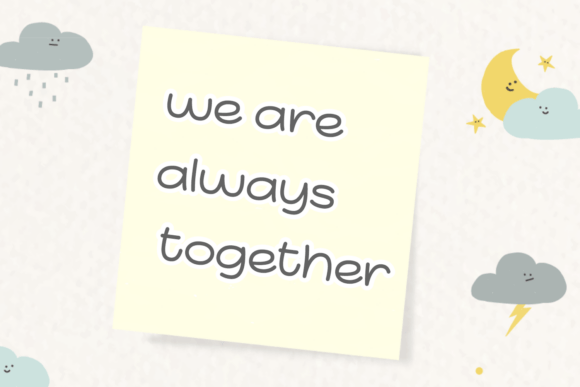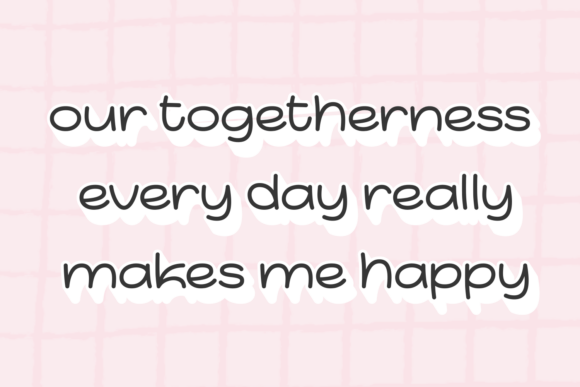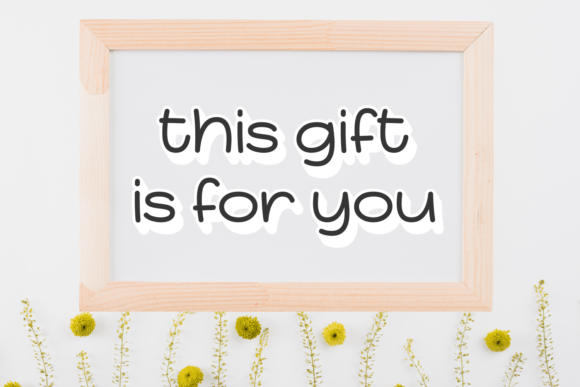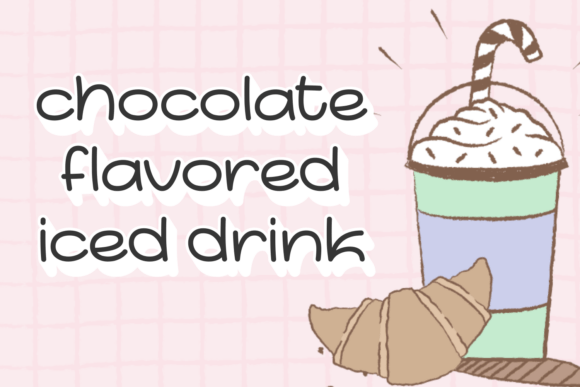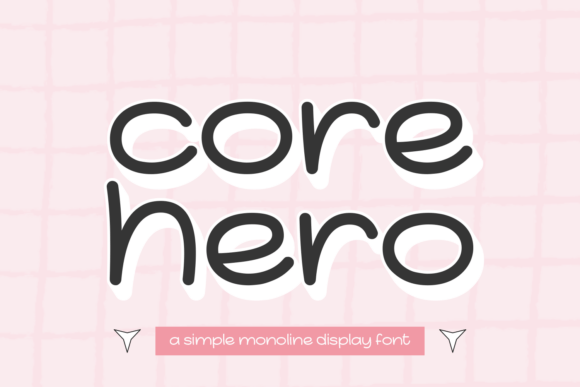
Introducing Core Hero: The Ultimate Font for Modern Creatives
In the world of typography, a font can make all the difference in the success of a design project. With the rise of minimalism and modernity in design, it’s essential to have a font that embodies these qualities while still standing out from the crowd. That’s where Core Hero comes in – a gently handwritten typeface that exudes clean elegance and versatility.
The Essence of Core Hero
Core Hero is more than just a font – it’s a design statement. Its minimalist approach to typography makes it perfect for a wide range of creative projects, from digital notebooks and glossy magazines to sophisticated monoline designs. The font’s clean lines and subtle curves create a sense of modernity that’s hard to ignore.
Seamless Integration
One of the standout features of Core Hero is its ability to seamlessly blend into any design canvas. Whether you’re working on a digital project or a print material, this font adapts effortlessly, making it an excellent choice for designers and crafters. Its trendy appeal is perfectly complemented by its beauty and versatility, making it ideal for:
- Brand logos
- Print materials
- Fashion-forward apparel
Perfect for Every Season
Core Hero is not just limited to a specific season or occasion. Its versatility makes it perfect for typographic designs throughout the year. Here are some ideas to get you started:
- Valentine’s Day: Create romantic and sweet designs with Core Hero’s elegant lines.
- Christmas decorations: Add a touch of modernity to your holiday designs with this beautiful font.
- Mother’s Day and Father’s Day greetings: Show your love and appreciation with personalized cards and gifts featuring Core Hero.
Why Choose Core Hero?
So, what sets Core Hero apart from other fonts? Here are just a few reasons why designers and crafters love this font:
- Unique style: Core Hero’s gently handwritten approach gives it a distinct style that’s hard to find in other fonts.
- Versatility: This font can be used for a wide range of projects, from digital designs to print materials.
- Elegance: Core Hero’s clean lines and subtle curves create a sense of elegance that’s perfect for high-end designs.
- Trendy appeal: This font is perfect for designers who want to create modern and trendy designs.
Tips for Using Core Hero
To get the most out of Core Hero, here are some tips to keep in mind:
- Experiment with colors: Core Hero looks great in a variety of colors, so don’t be afraid to experiment and find the perfect hue for your design.
- Play with typography: This font is perfect for creating unique typographic designs, so try combining it with other fonts or experimenting with different sizes and styles.
- Keep it simple: Core Hero’s minimalist approach makes it perfect for simple, yet effective designs. Don’t overcomplicate your design – let the font speak for itself.
In conclusion, Core Hero is a font that embodies the perfect blend of minimalism, modernity, and distinct style. Its versatility, elegance, and trendy appeal make it an excellent choice for designers and crafters who want to create stunning designs. Whether you’re working on a digital project or a print material, Core Hero is the perfect choice for any creative project. So why wait? Download Core Hero today and take your designs to the next level!